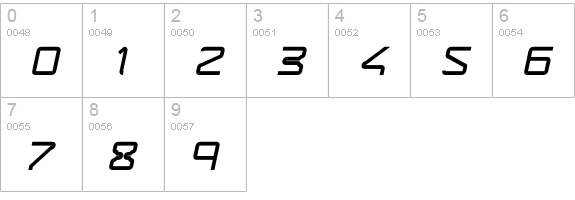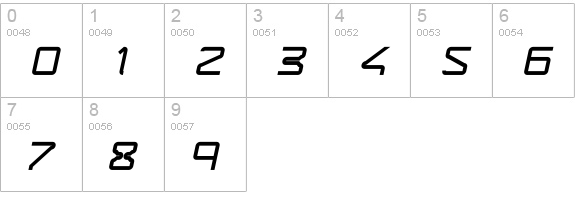
Assembler-BoldOblique Font Details
The Assembler-BoldOblique font is a striking and versatile typeface that effortlessly combines boldness with elegance. Its sleek and modern design is perfect for adding a touch of sophistication to any project. The bold oblique style of this font gives it a unique and dynamic appearance, making it stand out from the crowd. What's even better is that the Assembler-BoldOblique font is available for free download at FontsMarket.com. Whether you're working on a creative design project, a professional presentation, or simply looking to enhance your written content, this font is sure to make a statement. Don't miss out on the opportunity to elevate your work with the Assembler-BoldOblique font - download it for free today!